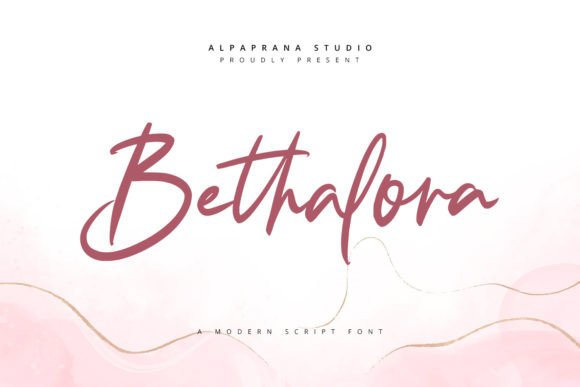
The Bethalora Font: Elevate Your Designs with Elegance
I’ll never forget the moment I stumbled upon the Bethalora font. I was working on a branding project for a luxury client, and I was struggling to find the perfect script font to complement their logo. The client wanted something that exuded elegance, sophistication, and a touch of whimsy. After hours of scouring font libraries and testing various options, I finally stumbled upon Bethalora. It was love at first sight! 💫
So, what makes Bethalora so special? Here are a few things that I absolutely adore about this font:
- ✨ Elegant and refined: Bethalora has a sophisticated, high-end feel that’s perfect for luxury brands, wedding designs, and upscale marketing materials.
- ✅ Versatile: This font works beautifully in both digital and print formats, making it a great addition to your design toolkit.
- 💫 Unique character: Bethalora has a distinct personality that sets it apart from other script fonts. Its subtle flair and swashes add a touch of whimsy to any design.
Of course, no font is perfect, and Bethalora has a few minor quirks:
- 🤔 Limited multilingual support: While Bethalora supports some non-English characters, it’s not extensive. Keep this in mind if you need to design for international audiences.
- ⚠️ Occasional kerning issues: As with any script font, you may encounter some kerning issues, especially when using all-caps or mixing with other fonts. Take the time to adjust and fine-tune your text.
The Story Behind Bethalora
Bethalora was designed by a talented type designer who drew inspiration from classic calligraphy and elegant script fonts. The goal was to create a font that exudes sophistication, elegance, and a touch of whimsy. The result is a beautiful, refined script font that’s perfect for a wide range of creative projects.
| Is Bethalora suitable for body text? | While Bethalora is a beautiful font, it’s best suited for headlines, titles, and short paragraphs. Its elegant, refined feel may not be ideal for longer blocks of text. |
| Does Bethalora support non-English characters? | While Bethalora supports some non-English characters, it’s not extensive. If you need to design for international audiences, double-check the font’s character set. |